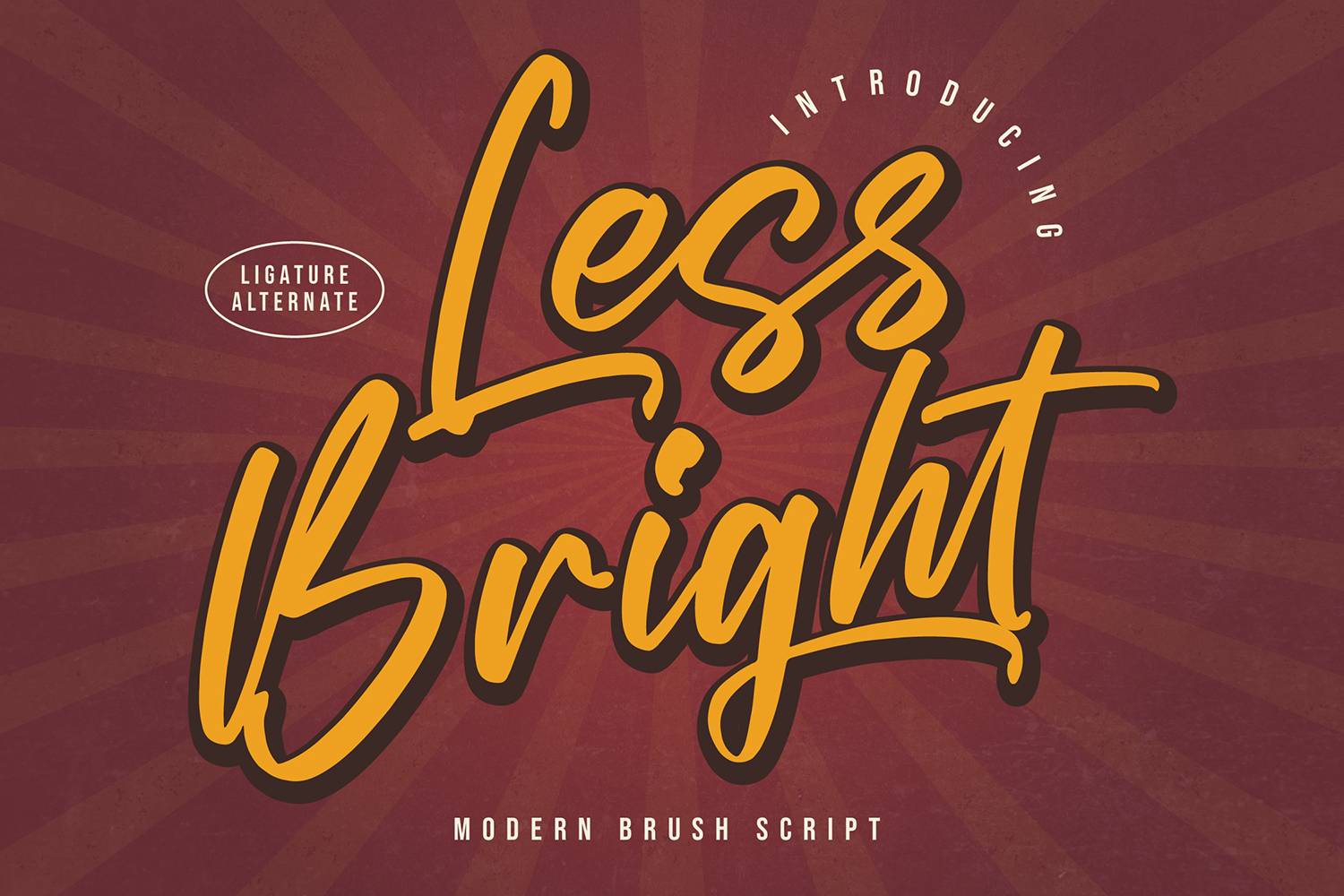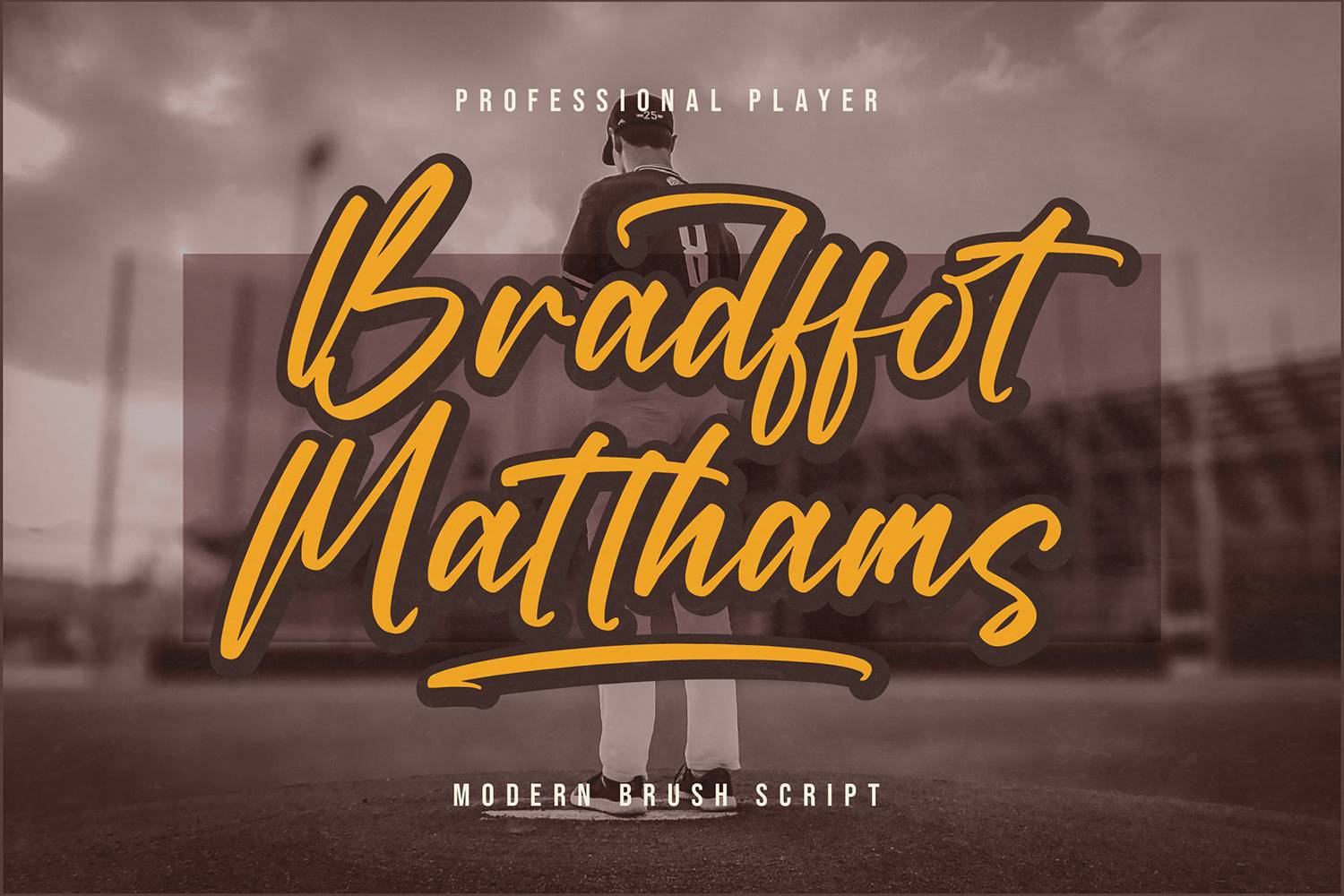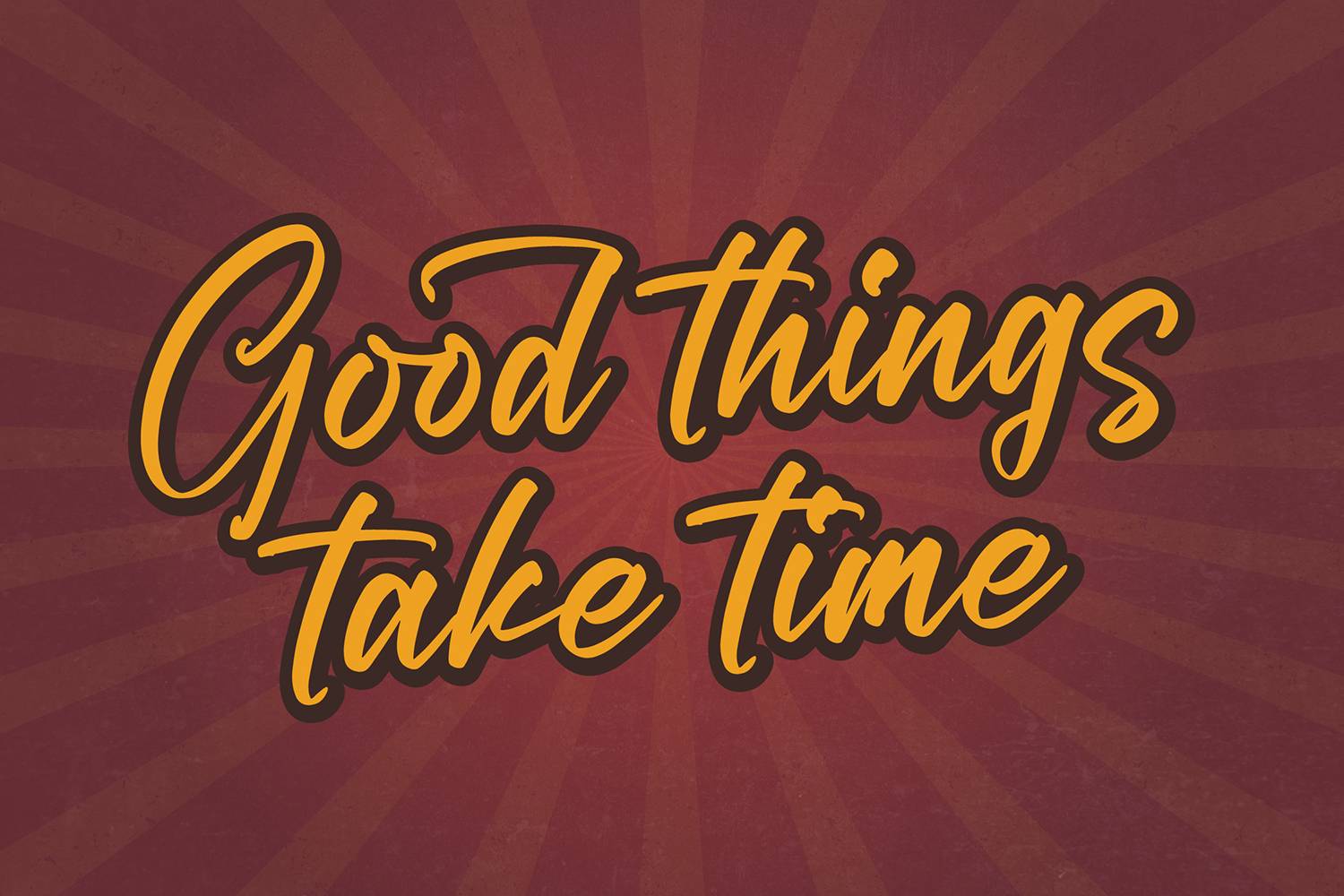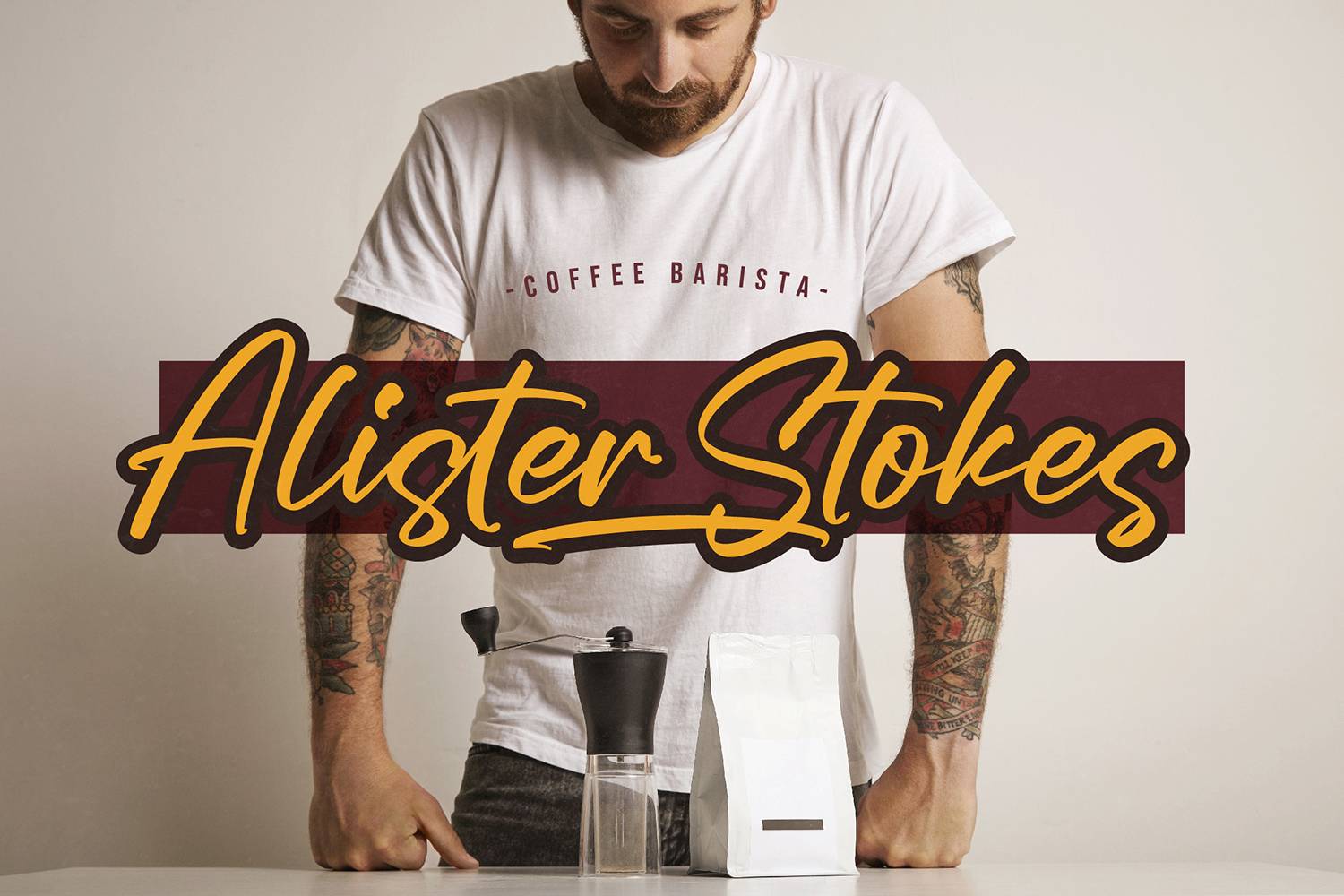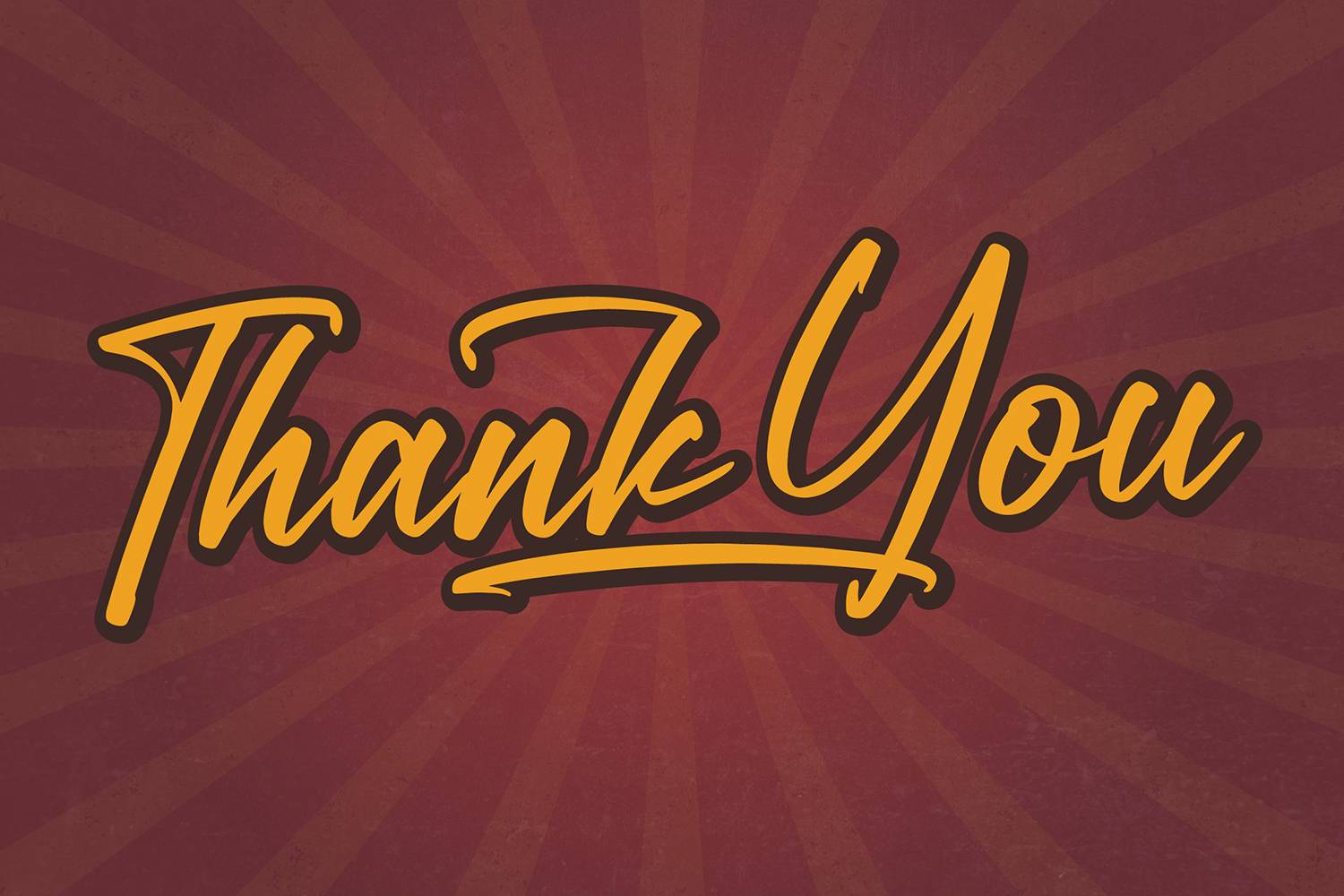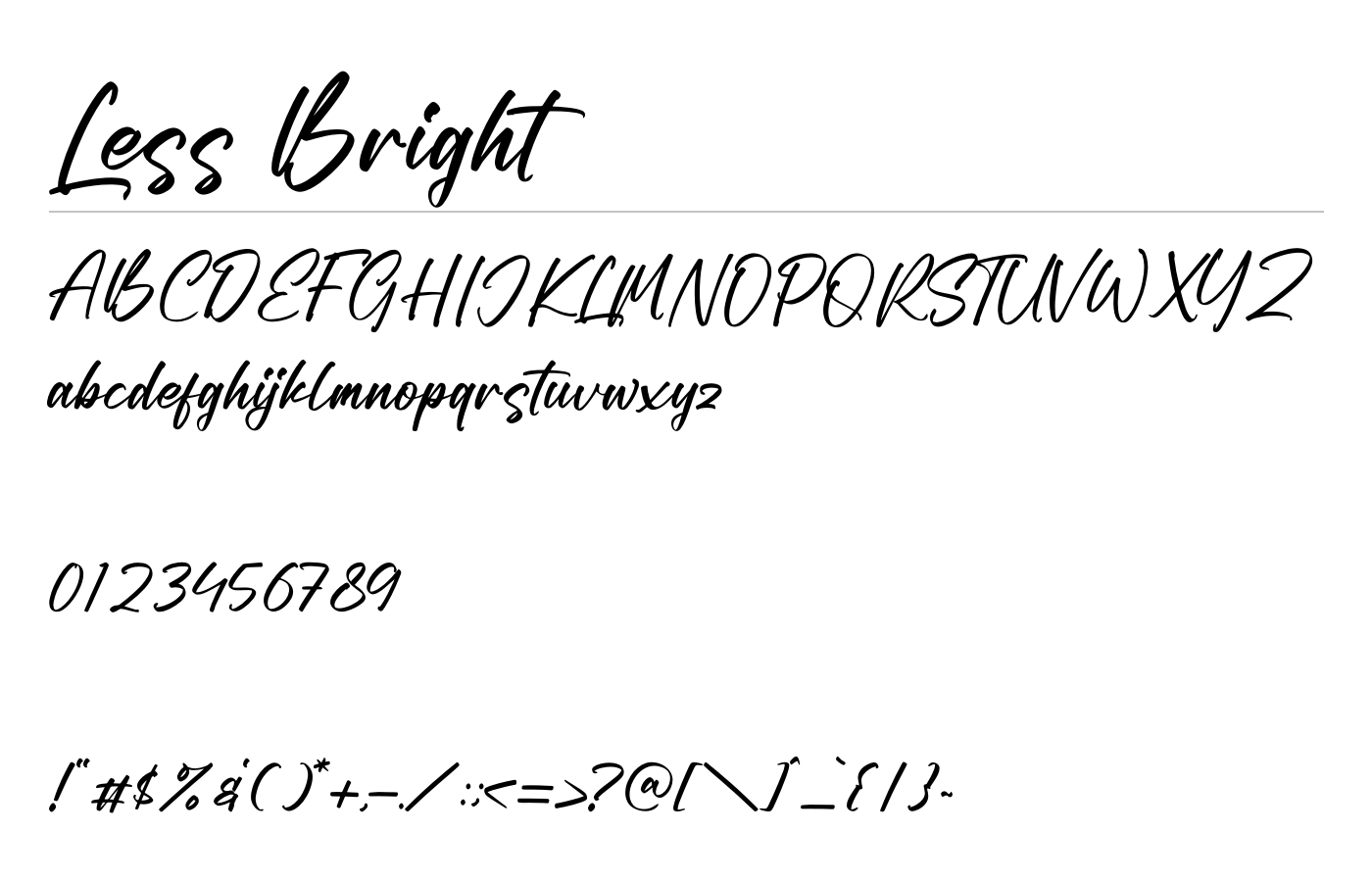
Less Bright is a lively and modern script font that combines smooth, flowing strokes with a casual handwritten feel. Its medium weight and moderate contrast create an approachable yet stylish look, making it perfect for creative branding, invitations, and editorial headlines that seek a personal and contemporary touch. This font brings warmth and energy without sacrificing readability, ideal for projects needing a fresh, expressive vibe.
Less Bright Font
About Less Bright Font